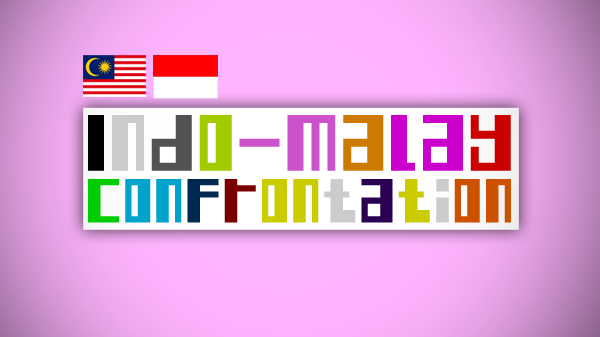
Preview and download Indo-Malay Confrontation Font. Created by Adien Gunarta in Techno Square styles with 100% Free license.
The Indonesia–Malaysia confrontation (also known as Konfrontasi in Indonesian and Malay) was an undeclared war between Indonesia and United Kingdom-backed Malaysia over the future of the island of Borneo from 1962 to 1966. The origins of the conflict lay in Indonesian attempts to destabilise the new federation of Malaysia, which came into being in 1963. (wikipedia) Please donate me at my PayPal account, maximadien@gmail.com You can use this font for commercial if you donate :) Thank You! |